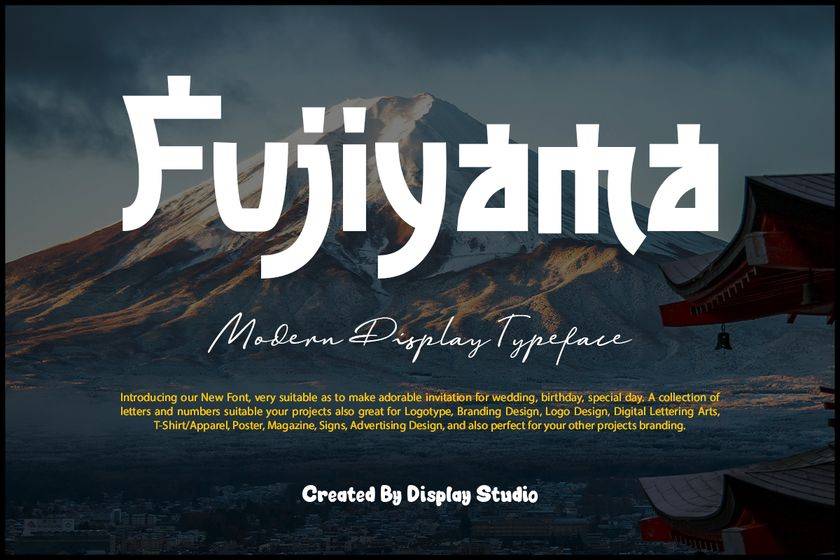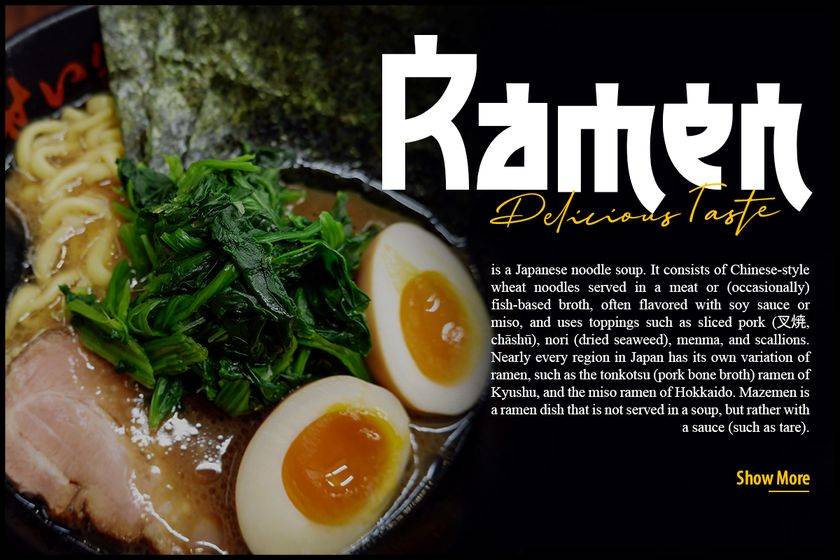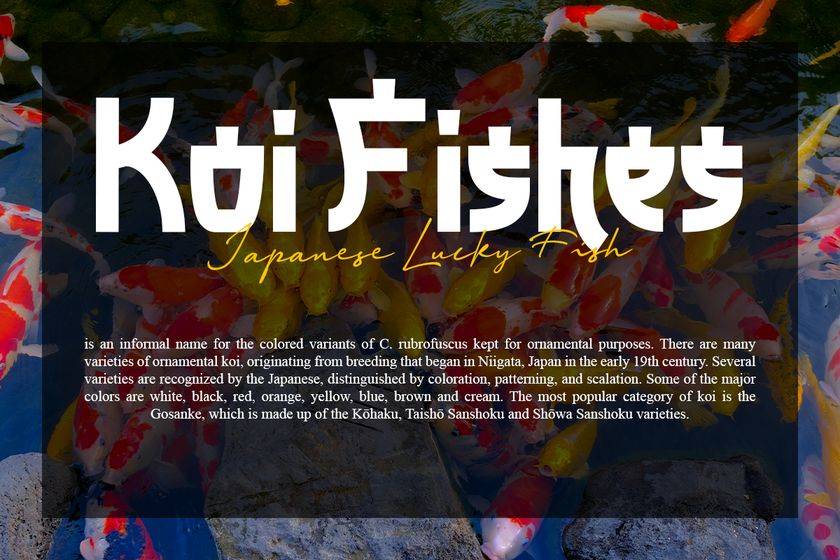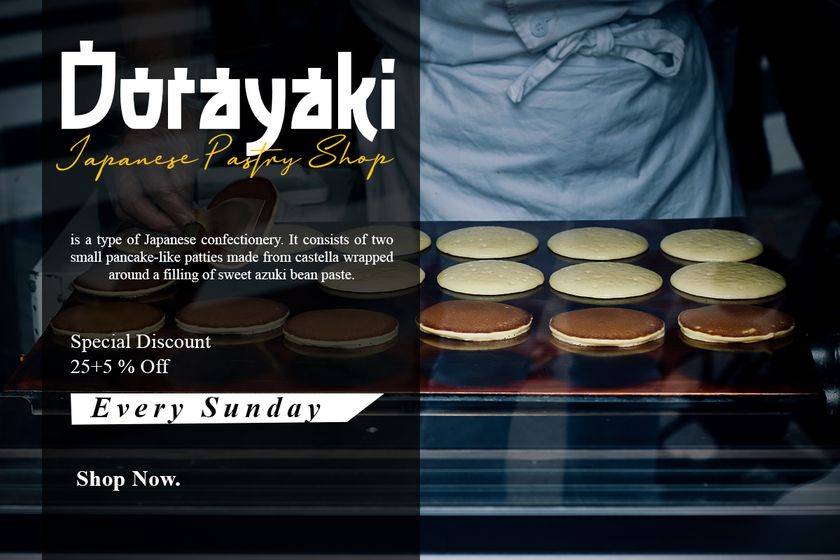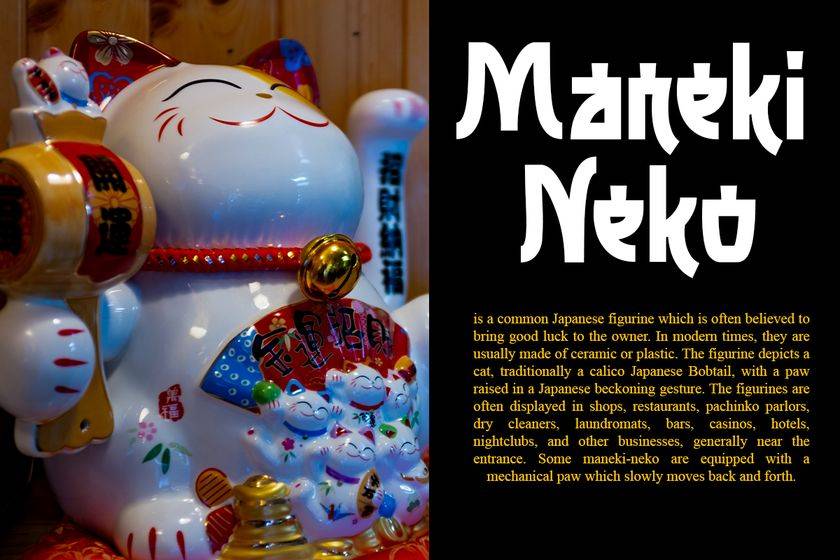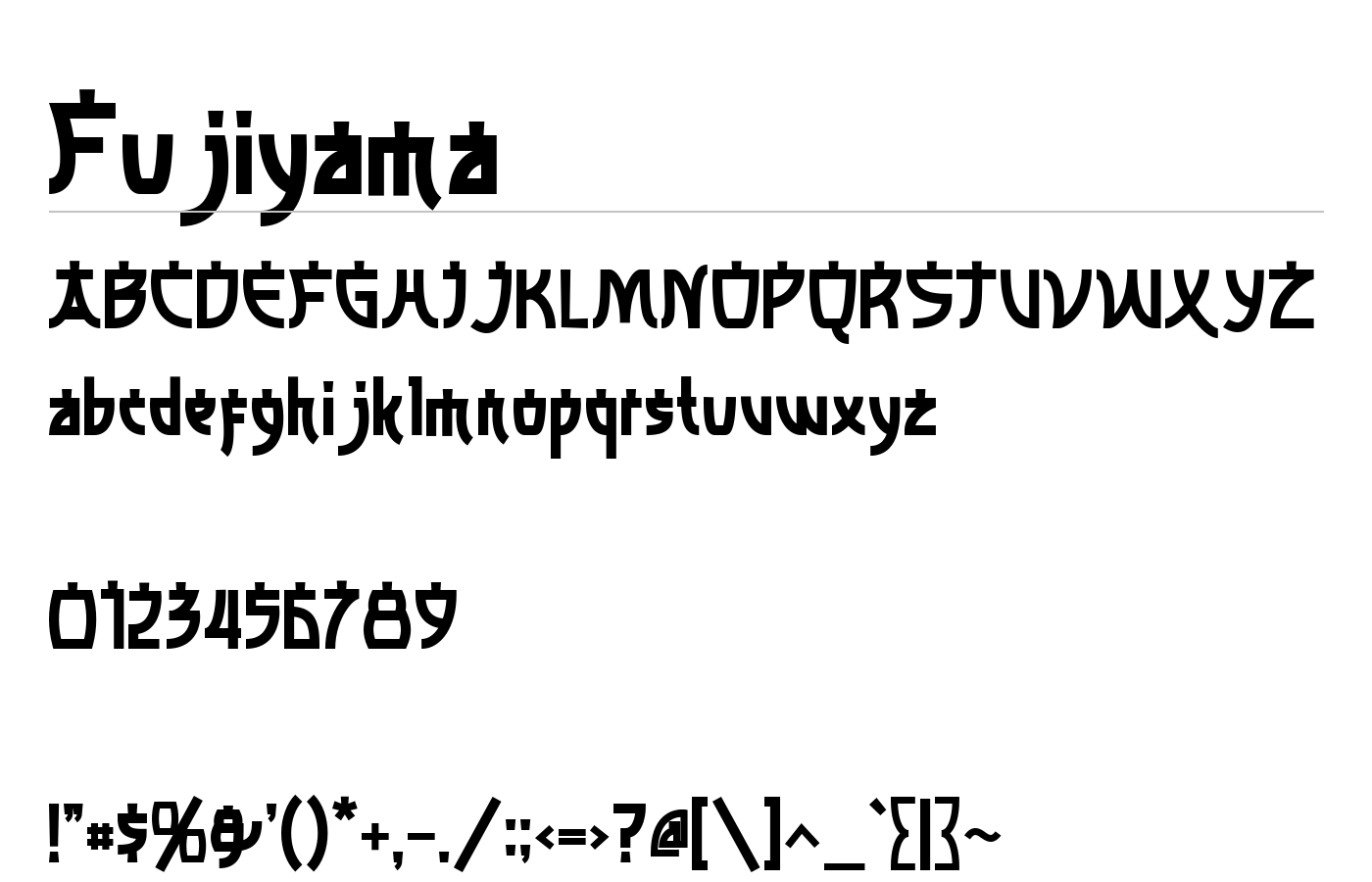
Fujiyama is a bold, condensed sans serif font with a unique geometric and somewhat angular style that gives it a modern yet exotic feel. Its high stroke contrast, sharp edges, and distinctive letterforms evoke an adventurous and dynamic personality, making it ideal for attention-grabbing headlines, logos, and branding that want to convey strength and individuality. This font works well in creative design projects and cultural themes where a striking and memorable look is desired.
Fujiyama Font
About Fujiyama Font
| Font family | Fujiyama Font |